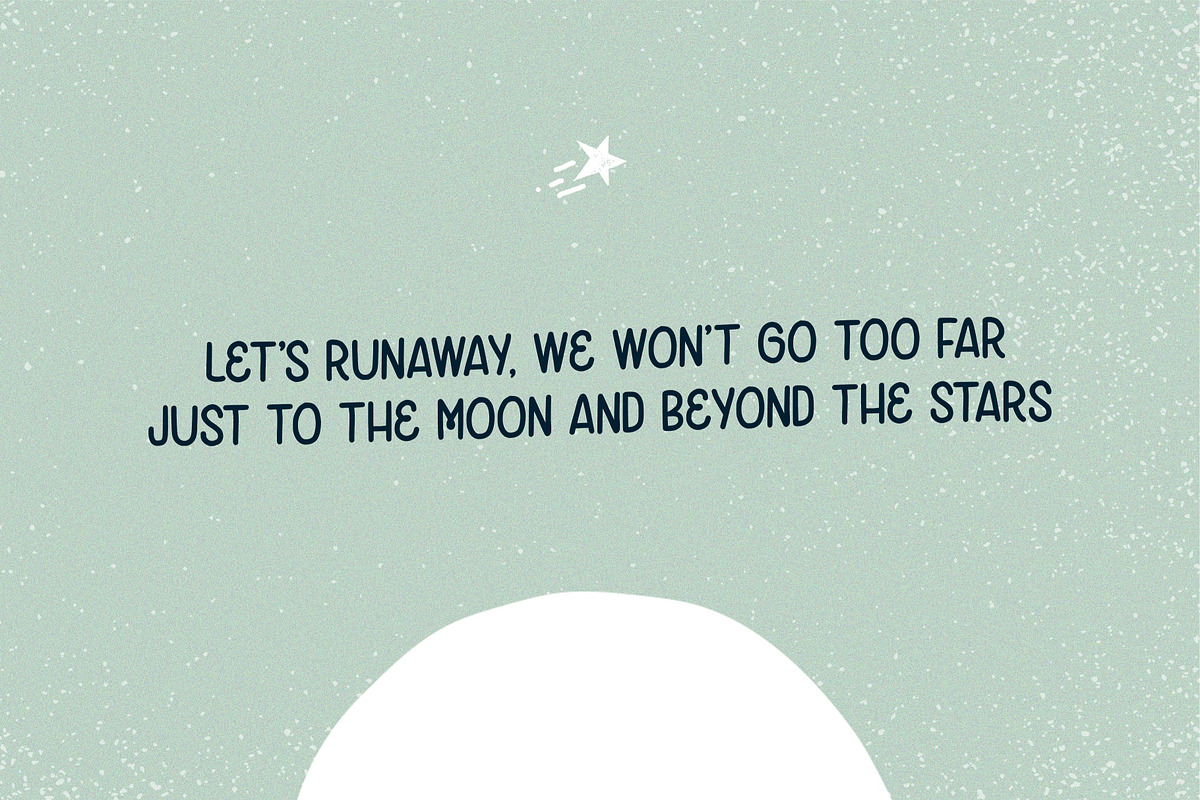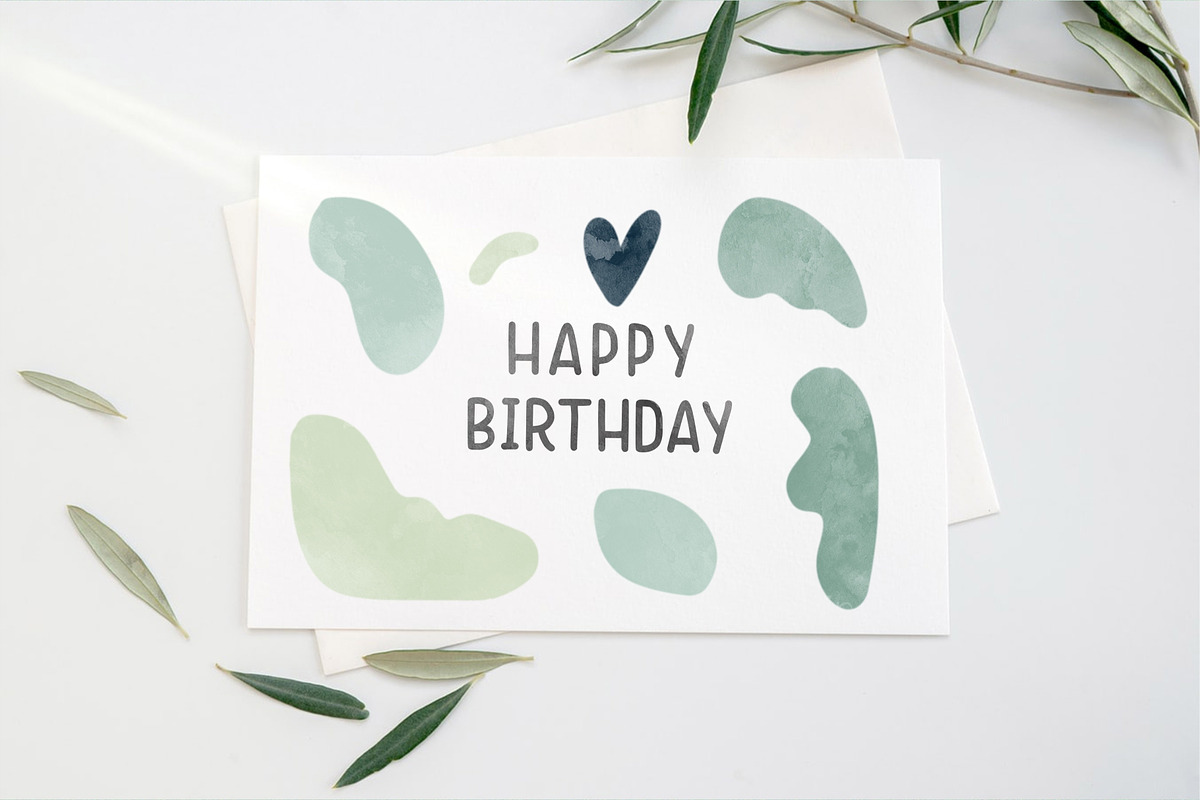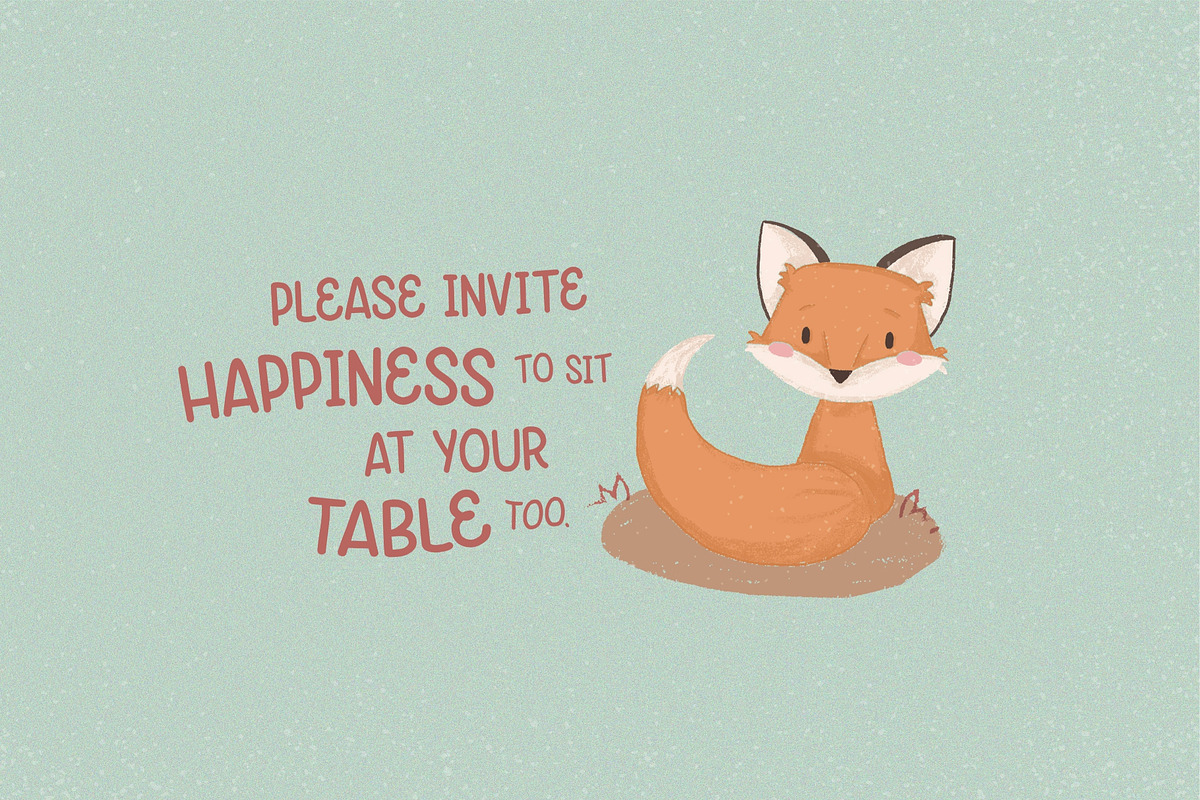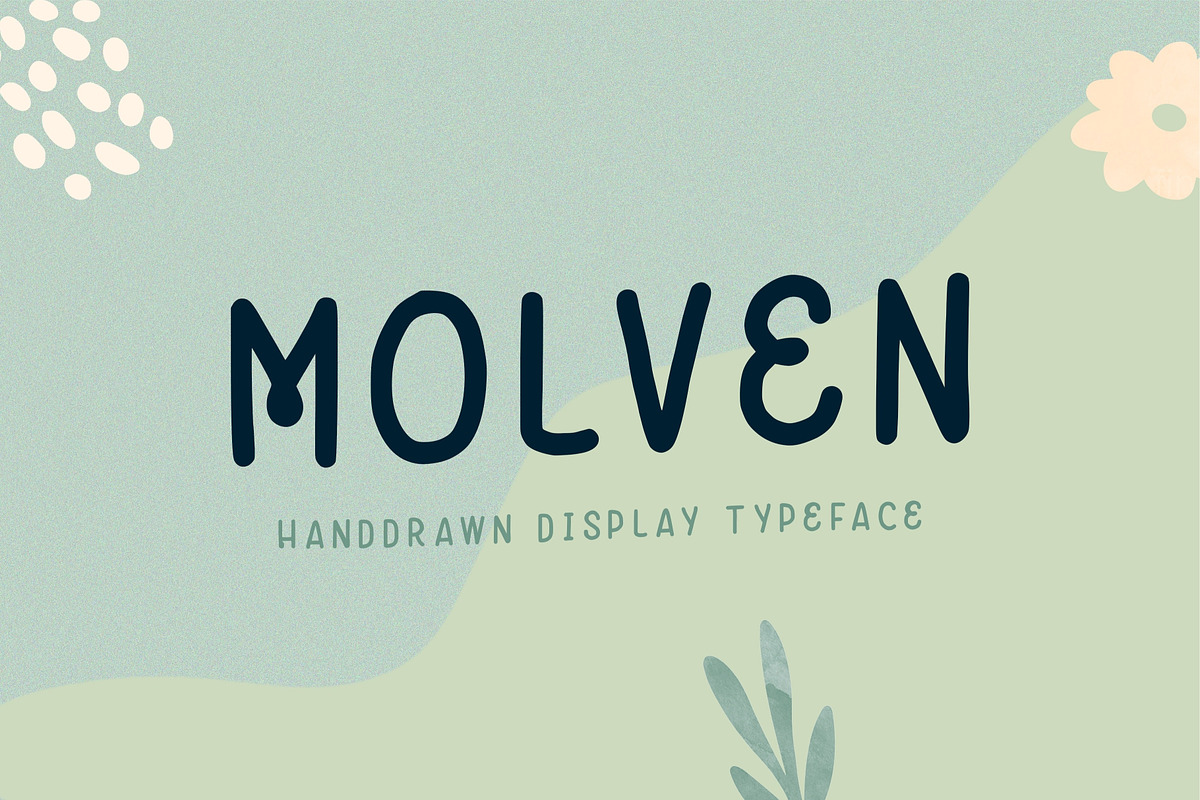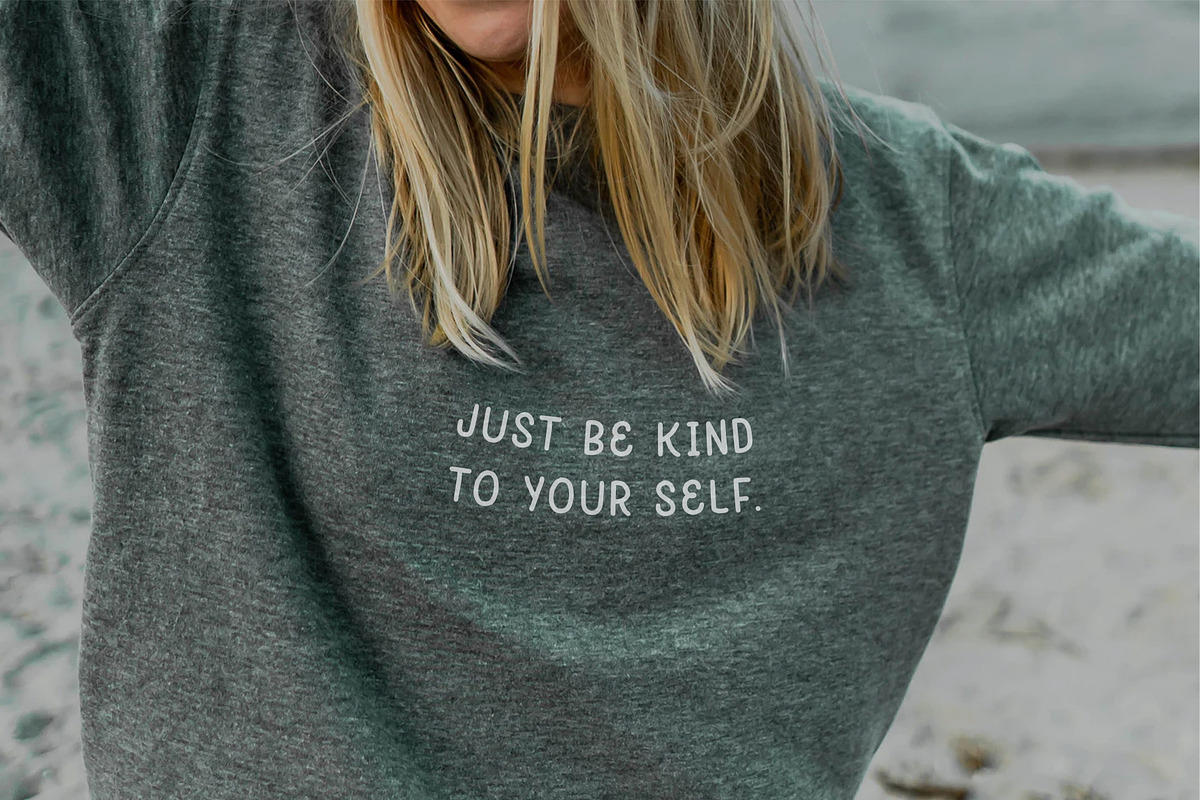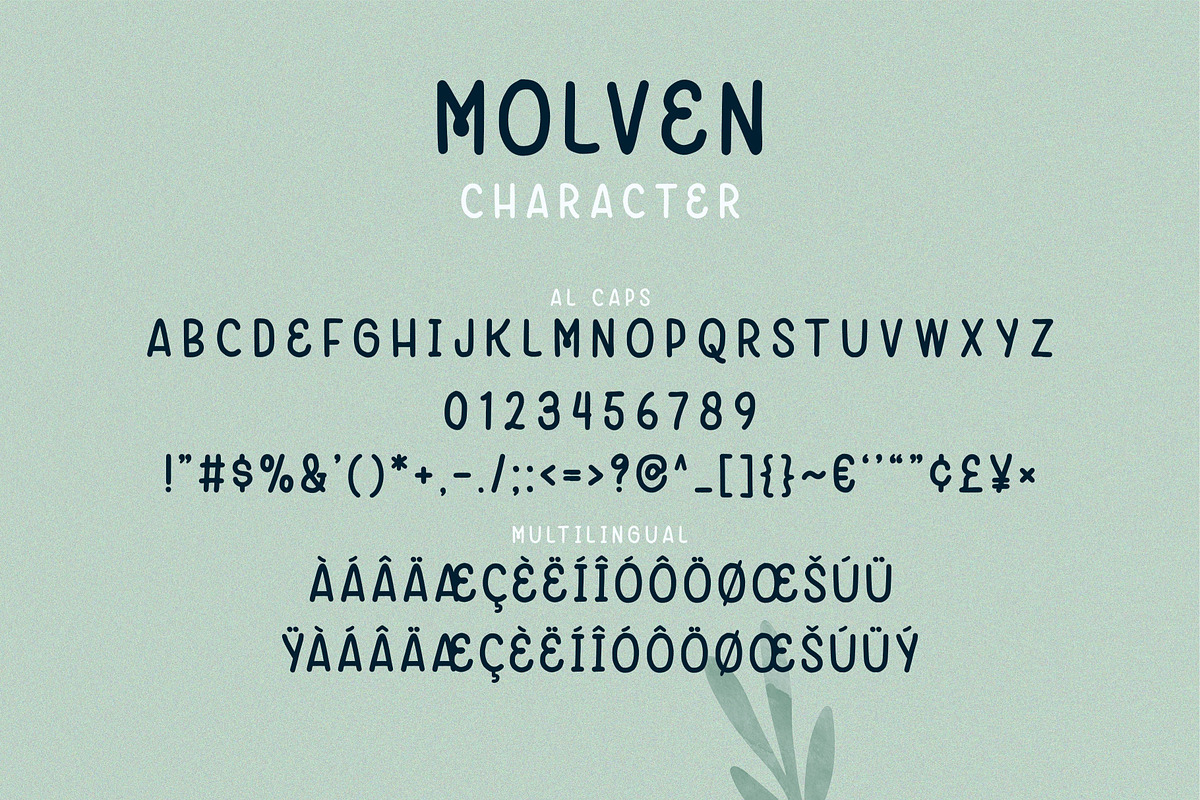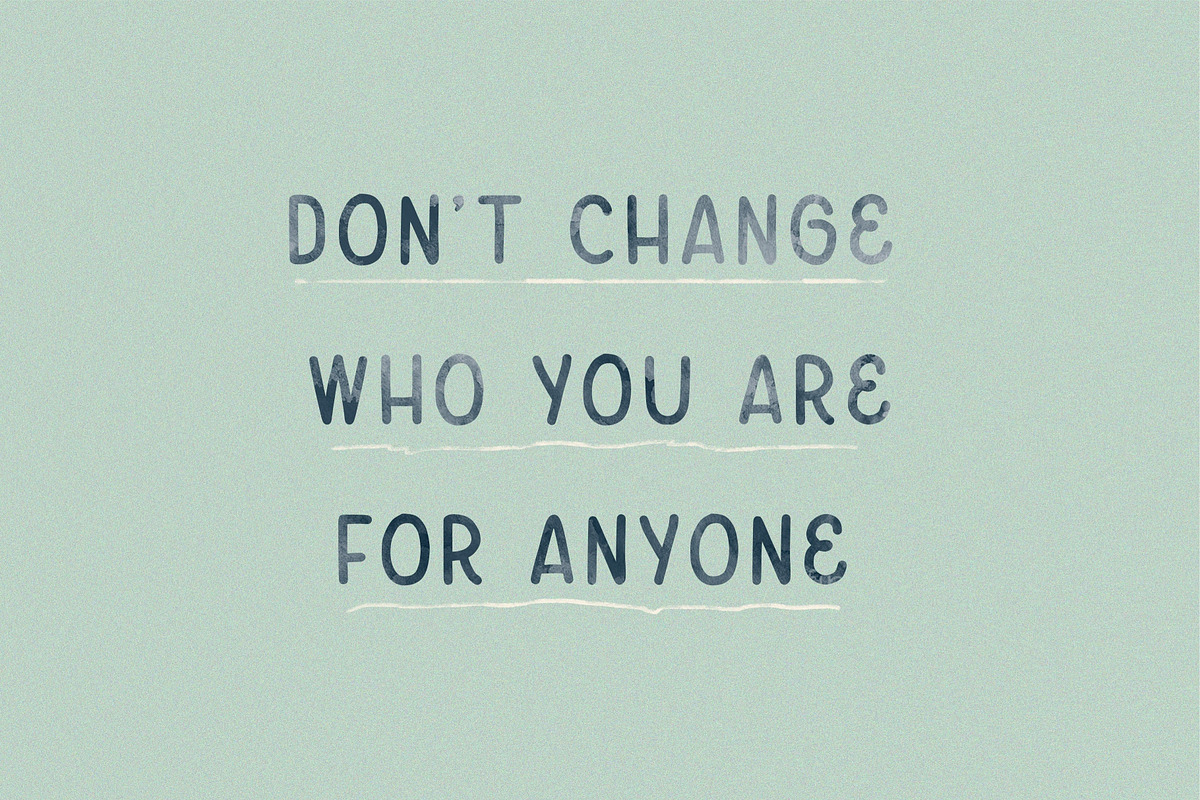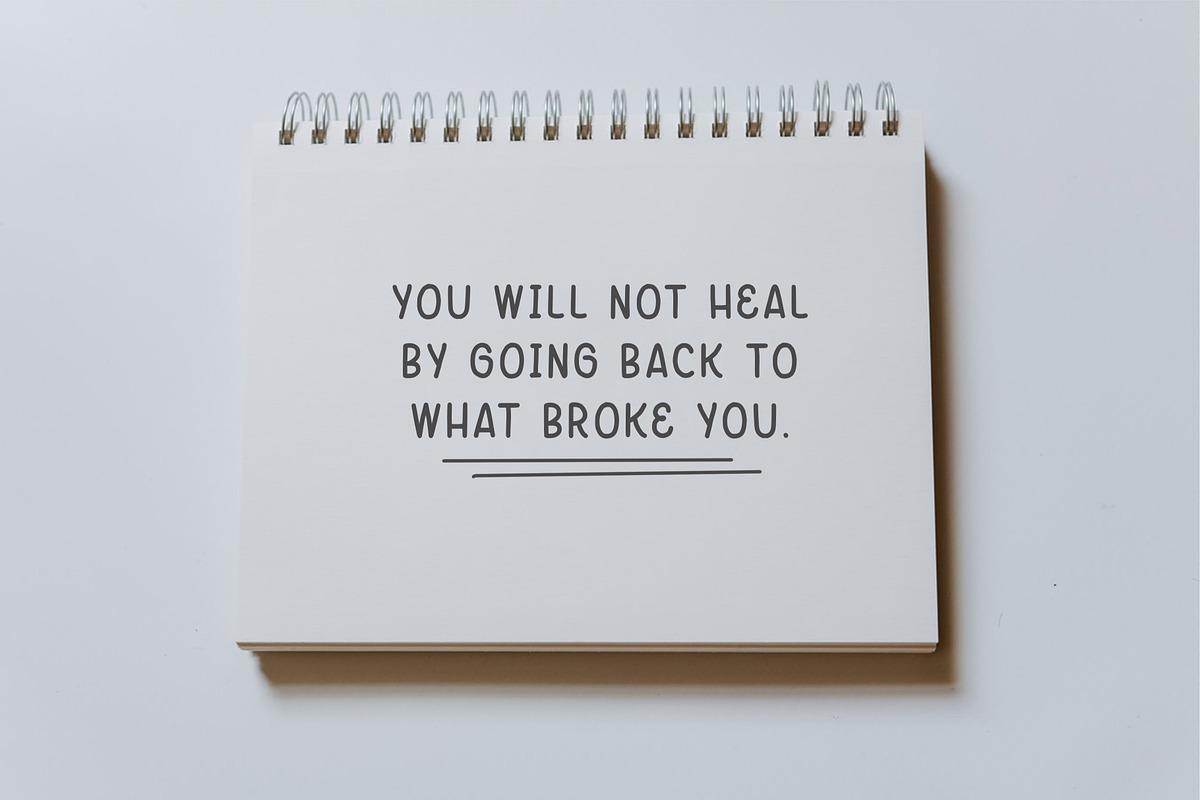
Molven - Natural Handdrawn
Introducing Molven - Natural Handdrawn
Molven - Natural Handdrawn font is a natural & modern handwritten font. I'ts Perfect for logo, invitation, stationery, wedding designs, social media posts, advertisements, product packaging, product designs, label, photography, watermark, special events or anything.
What's Advantages Molven ?
- Very great for branding, logotype, handletteing, invitations, or fashion branding.